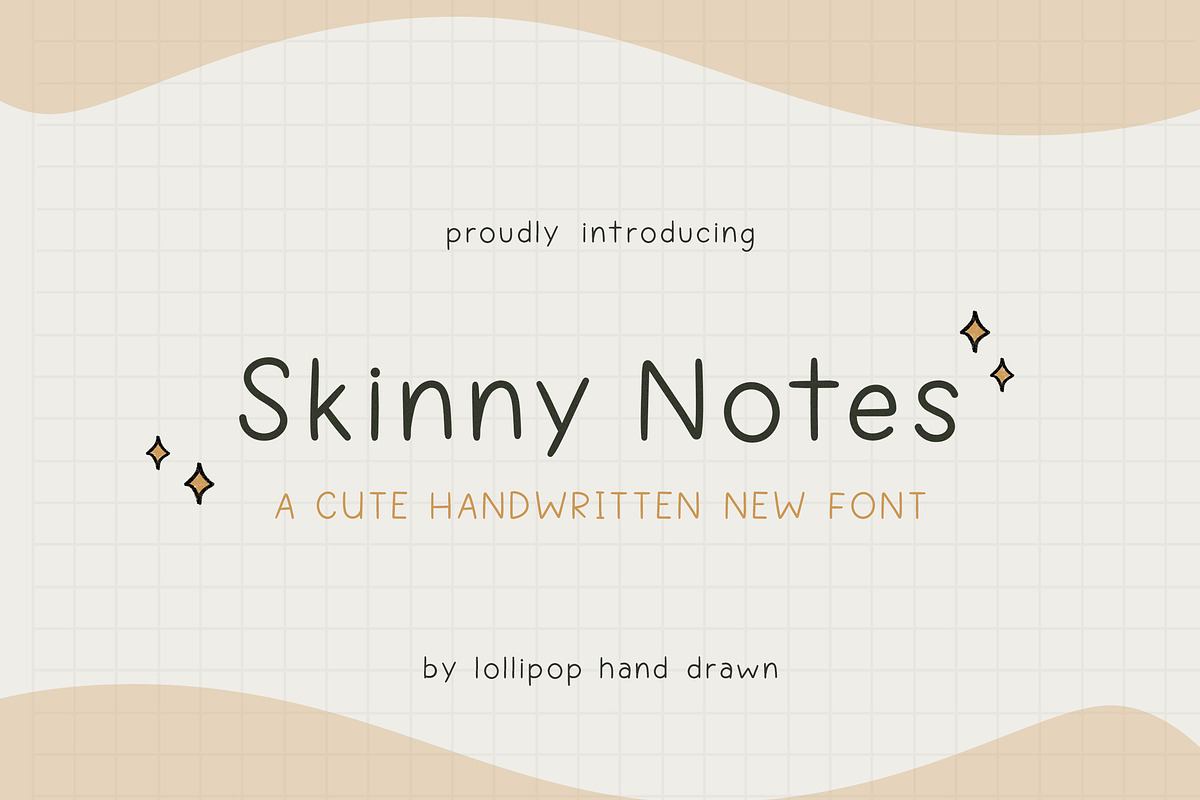
The Skinny Notes Font Free Download is a cute and casual handwritten typeface that mimics the look of quick journal scribbles or playful note-taking. It’s perfect for planners, school projects, kids’ designs, social media content, digital stickers, and creative scrapbooking.
With its thin strokes and natural handwriting style, Skinny Notes brings a personal and fun touch to your layouts while keeping everything light and readable. The font includes uppercase and lowercase letters, numbers, punctuation, and multilingual support—making it easy to use in a variety of creative projects.